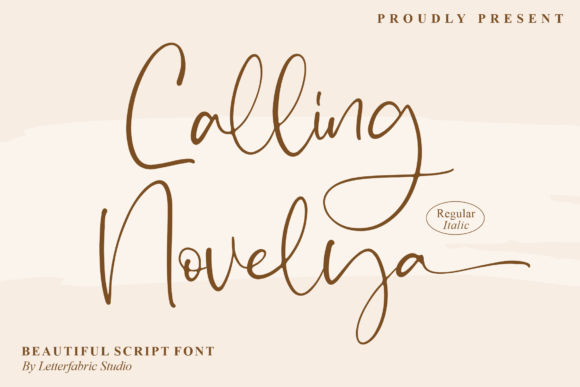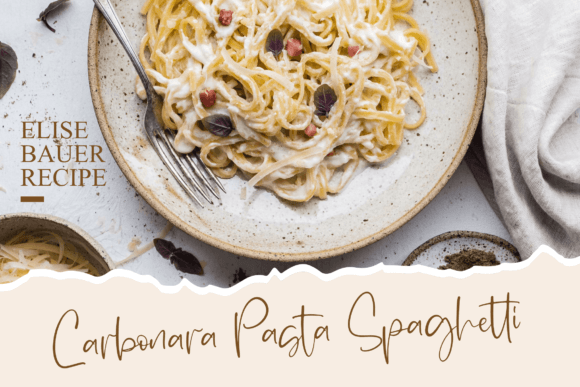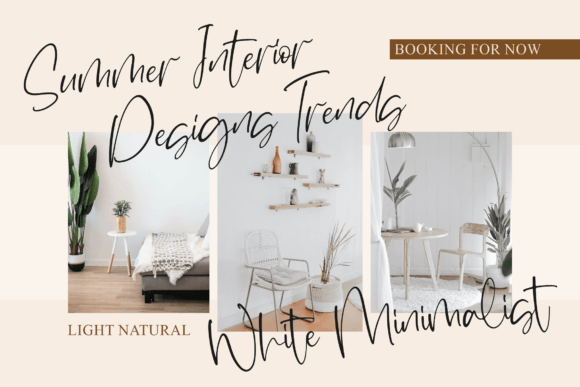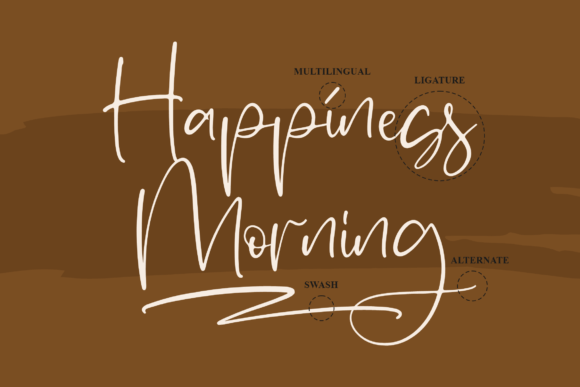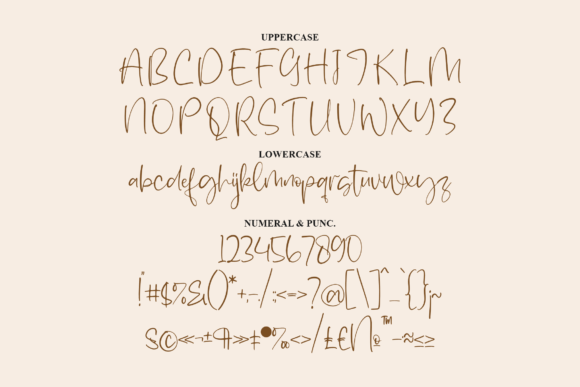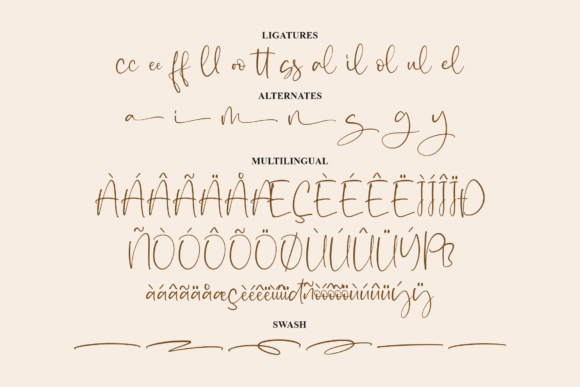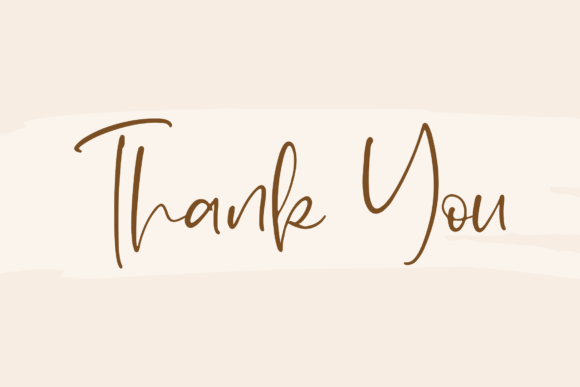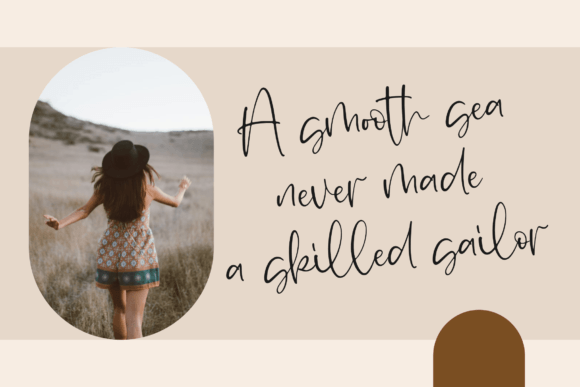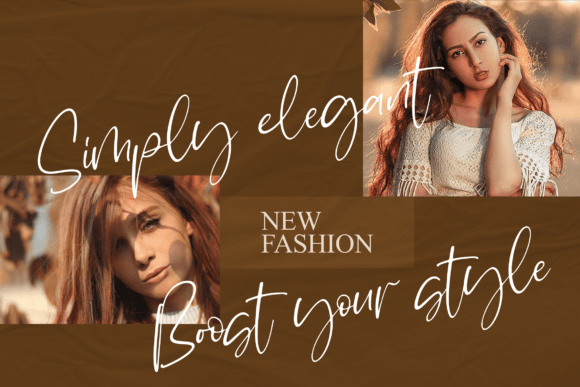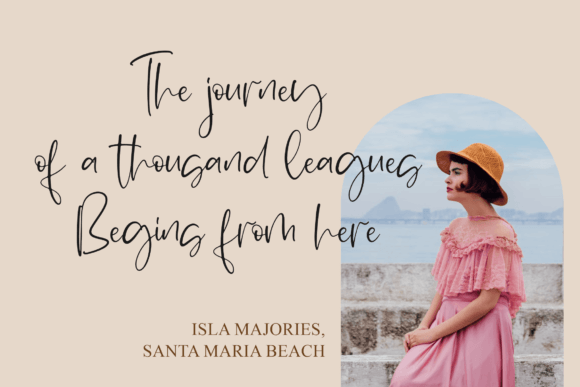
Calling Novelya Font
About Calling Novelya Font
“Calling Novelya” presents itself as a slim and exquisite handwritten font, promising to infuse a sense of style, grace, and flow into your creative projects. With its stylish, graceful, and flowing attributes, this font is designed to enhance the aesthetic appeal of your beautiful creations while maintaining a grounded and natural charm.
The slim and elegant design of “Calling Novelya” is a testament to its meticulous craftsmanship. Each letter seamlessly connects, contributing to an overall appearance that exudes sophistication. The font’s versatility lends itself well to various design applications, bringing a dynamic quality to your projects.
A standout feature of “Calling Novelya” lies in its PUA encoding, providing convenient access to a diverse range of amazing glyphs and ligatures. This feature empowers you to effortlessly customize and enhance your designs. Whether you’re working on branding, invitations, or any creative endeavor, these additional elements introduce a unique and personalized touch to your work.
Envision the impact of “Calling Novelya” on your branding materials—it has the potential to transform your logo into a sleek and sophisticated visual identity, conveying a distinct sense of style. In invitations or letterheads, it introduces a touch of grace, setting the stage for elegant communication. Applied to various creative projects, it becomes a key element that enhances the overall aesthetic with its slim and exquisite handwritten style.
Incorporate “Calling Novelya” into your design toolkit and observe how it elevates your creations. Let its slim, graceful, and flowing design be the pivotal element that brings a touch of natural charm to your projects. Whether you’re designing for print or digital platforms, “Calling Novelya” provides a versatile and expressive solution for your typographic needs.